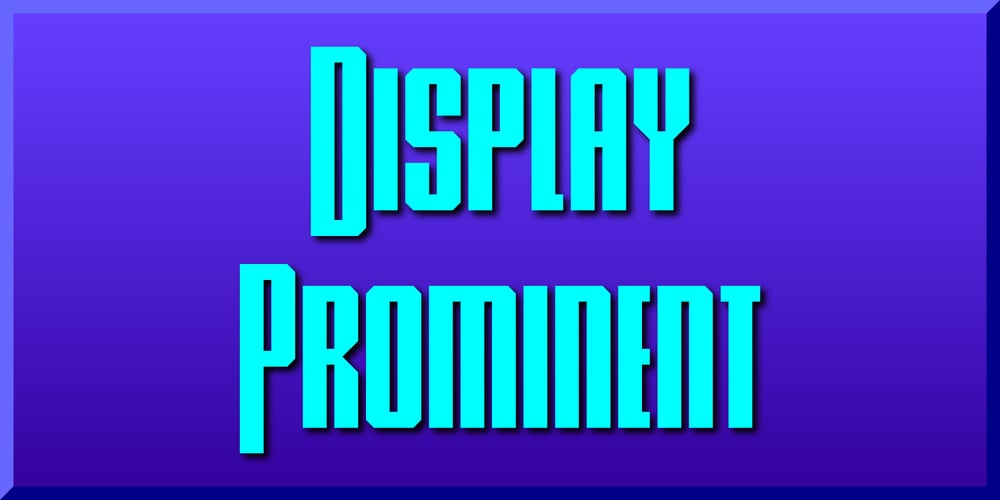
Display Prominent Font Family was designed by Gerald Gallo and published by Gerald Gallo. Display Prominent contains 1 styles and family package options. Display Prominent is a display font not intended for text use. It was designed specifically for display, headline, logotype, branding, and similar applications. In place of a lowercase there are short caps that are centered horizontally on the tall caps. There are also short numbers, punctuation, and miscellaneous characters.